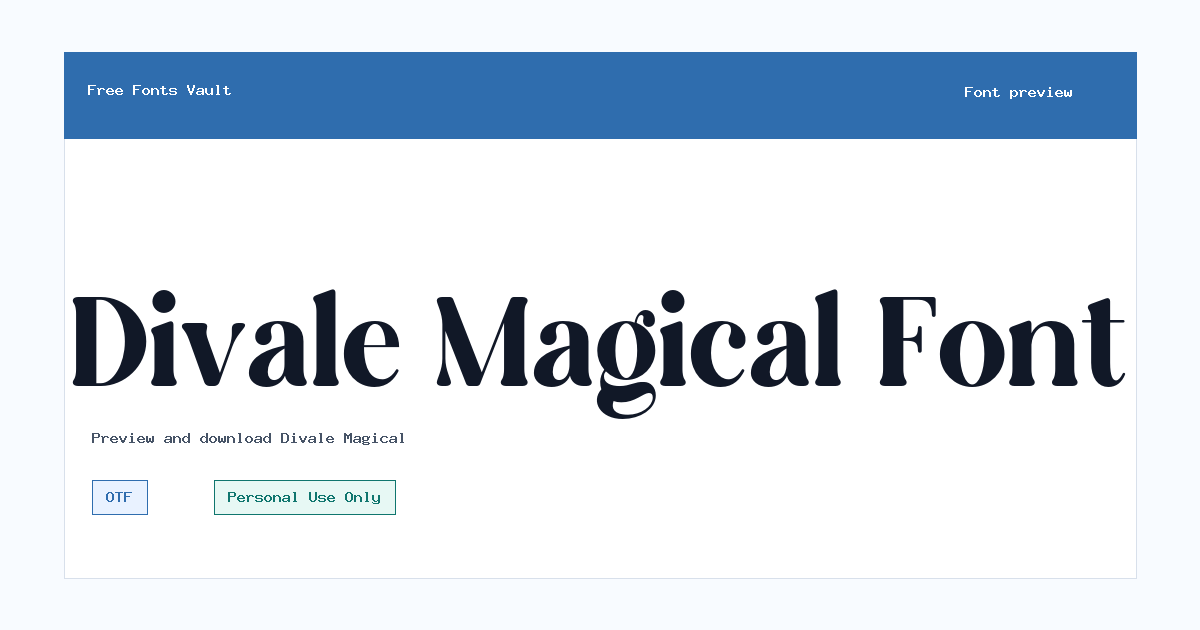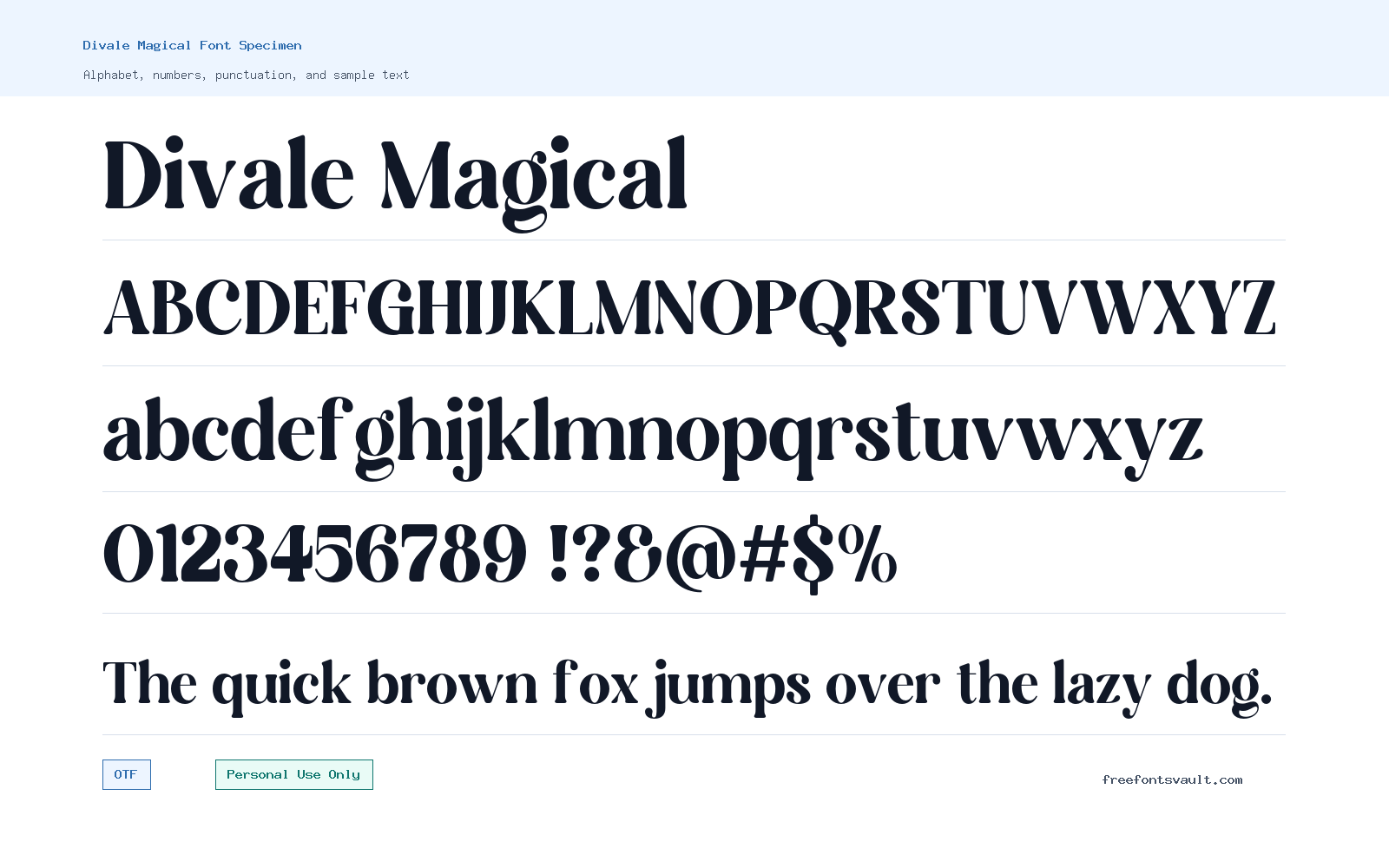
Divale Magical
Divale Magical is a decorative serif font with a polished, expressive look for short display text. It is best tested in larger sizes where its character shapes can stand out clearly.
About Divale Magical Font
Divale Magical works as a display-first serif rather than a quiet reading face. Its name suggests a refined, fantasy-leaning mood, but the safest way to judge it is through the live preview: type your title, brand phrase, invitation line, or social graphic text and check how the capitals, spacing, and punctuation behave together. Because only the regular OTF style is listed, it is better suited to focused typography moments than full multi-weight identity systems. Use it where one strong type choice can carry the design, such as a headline, cover title, label, card, quote graphic, or decorative section heading.
For best results, keep the wording short and give the letters room. Decorative serifs often lose their charm when squeezed into dense paragraphs, narrow buttons, or small mobile captions. Try generous line spacing, careful letter spacing, and strong contrast against a clean background. Pair Divale Magical with a simple sans serif or a calm text serif for body copy so the design does not feel crowded. If you are preparing a poster, thumbnail, logo draft, packaging mockup, or event graphic, preview the exact words before downloading, especially if your text uses numbers, symbols, accents, or mixed-case styling.
- Decorative serif style suited to short headlines, titles, and display typography.
- Invitations, quote graphics, posters, cover titles, and elegant display headings.
- Personal branding drafts, mood boards, social posts, and decorative project mockups.
What kind of designs fit Divale Magical best?
Use it for short display text such as invitations, headings, posters, covers, quote graphics, and decorative personal projects. It is not the best choice for long paragraphs.
How should I pair Divale Magical with other fonts?
Pair it with a simple sans serif or a neutral text font. Let Divale Magical handle the headline while the companion font carries longer descriptions, dates, captions, or menu text.